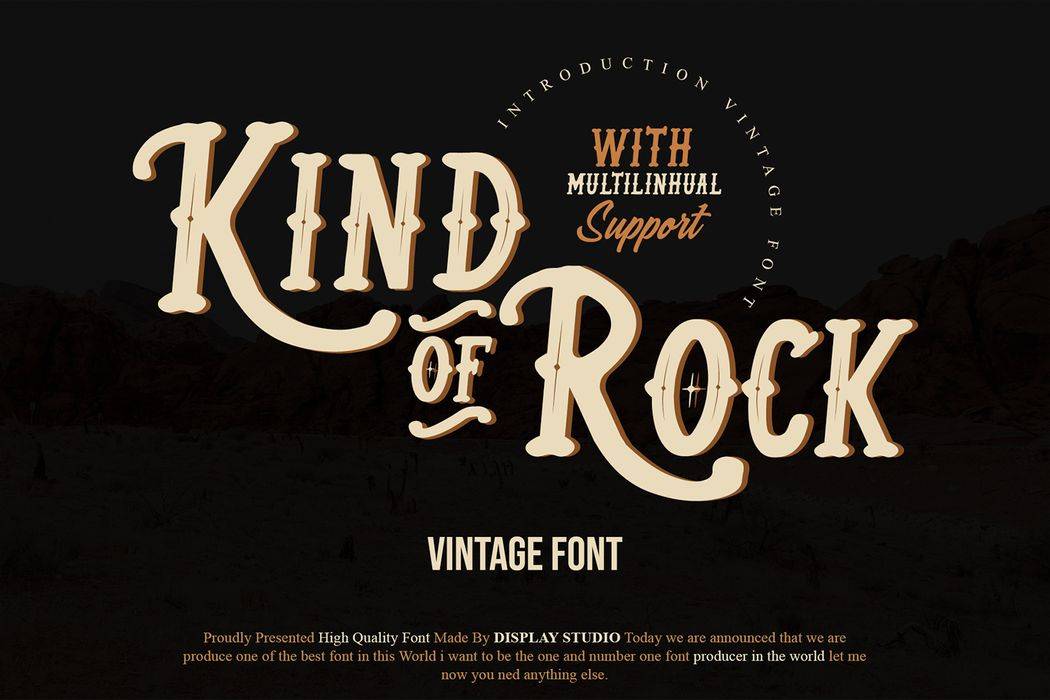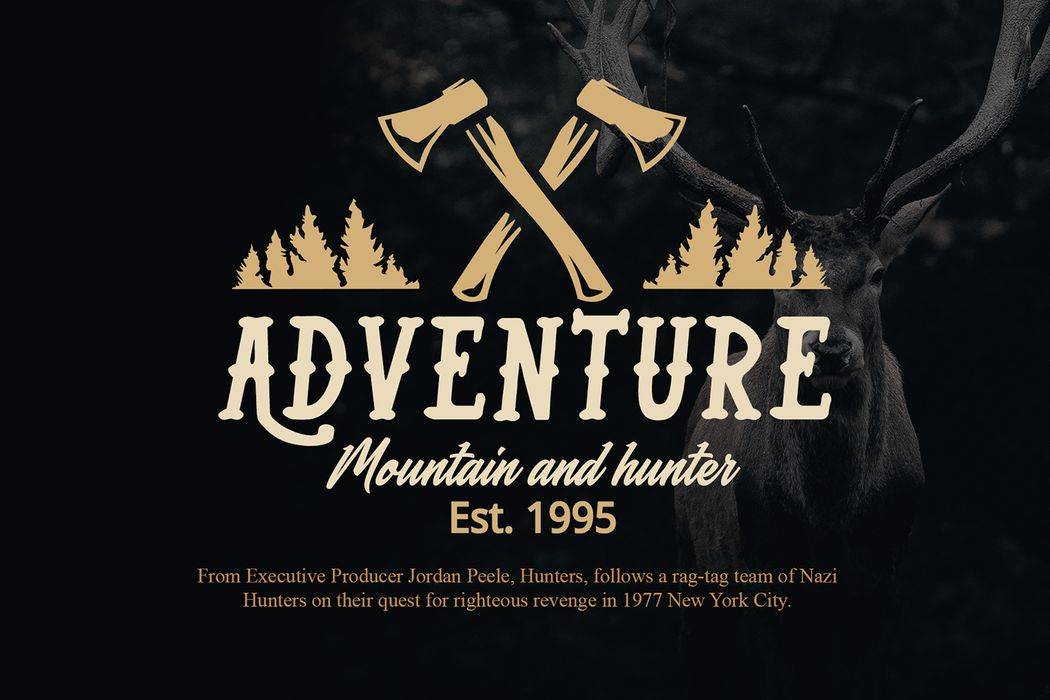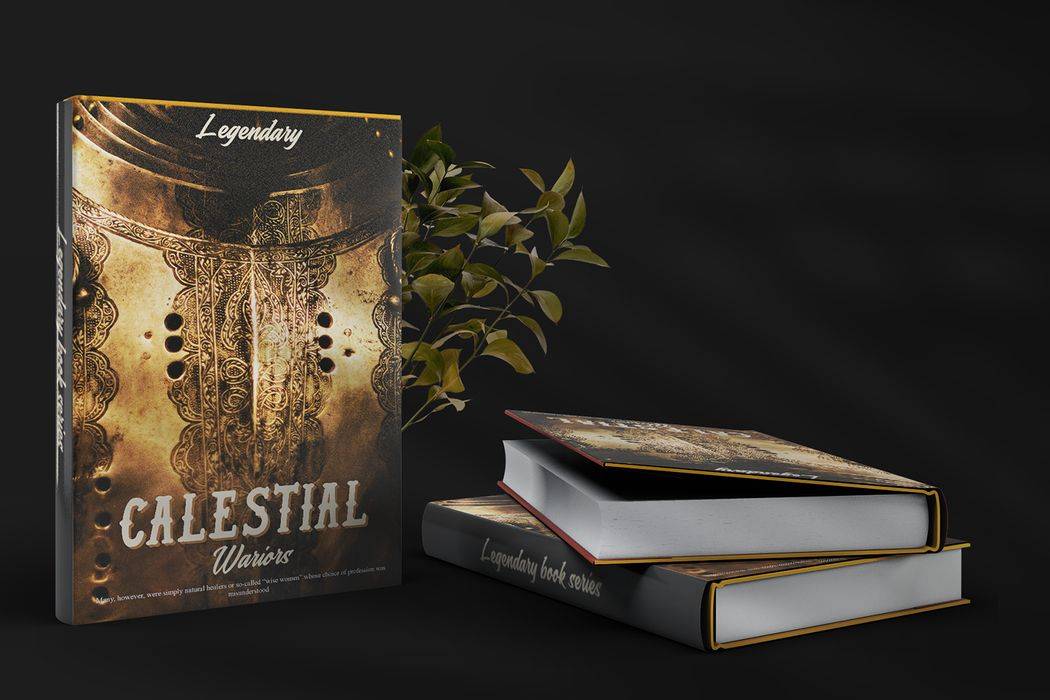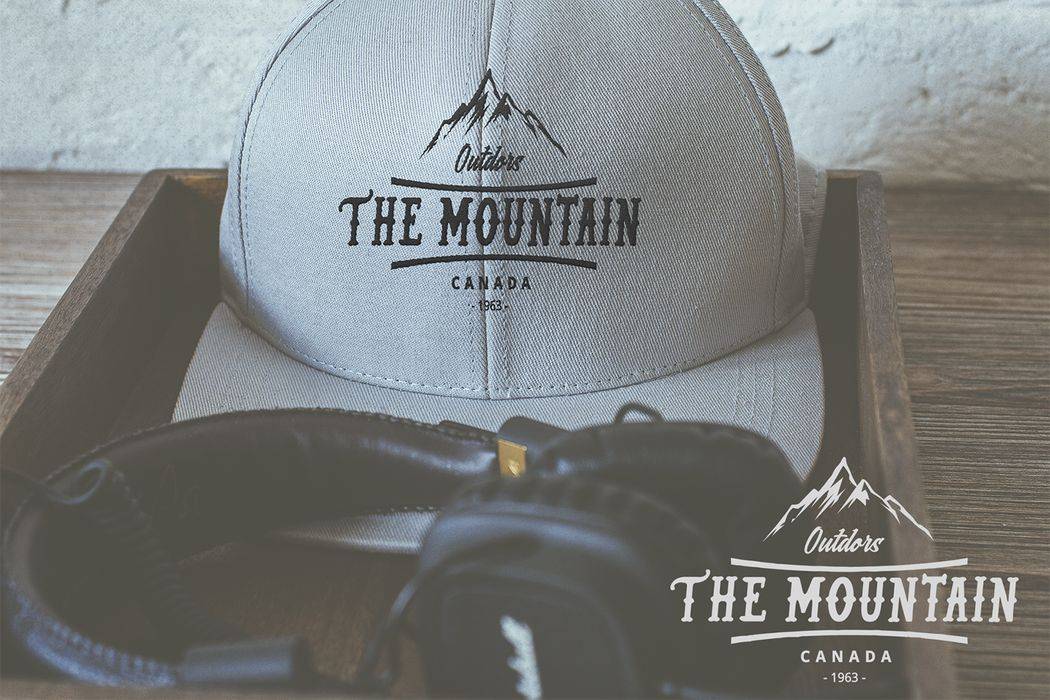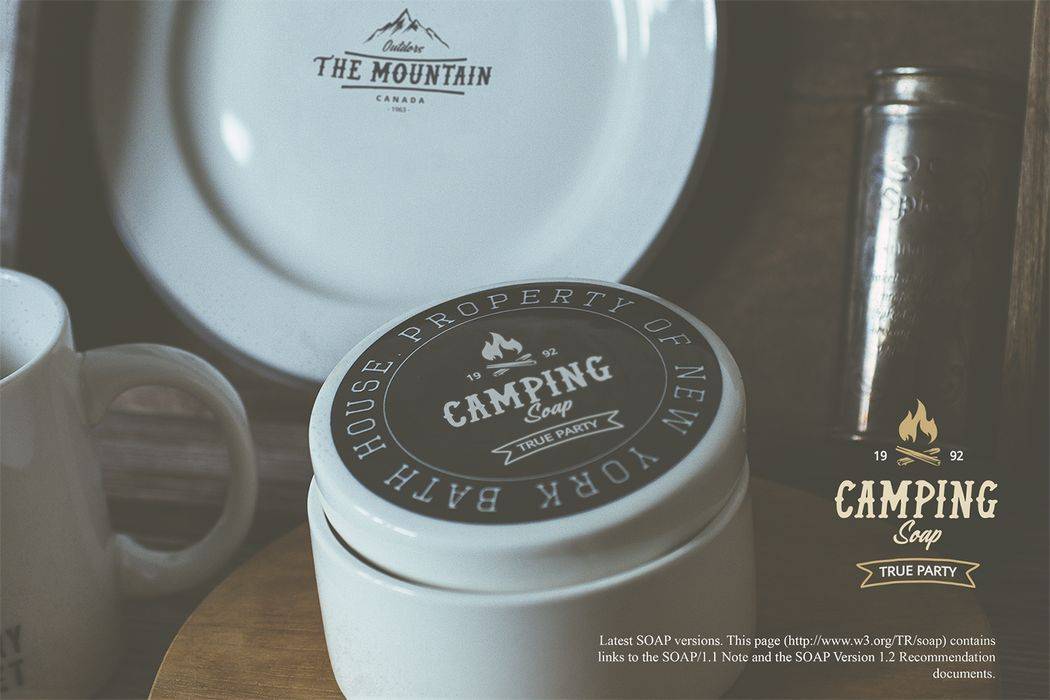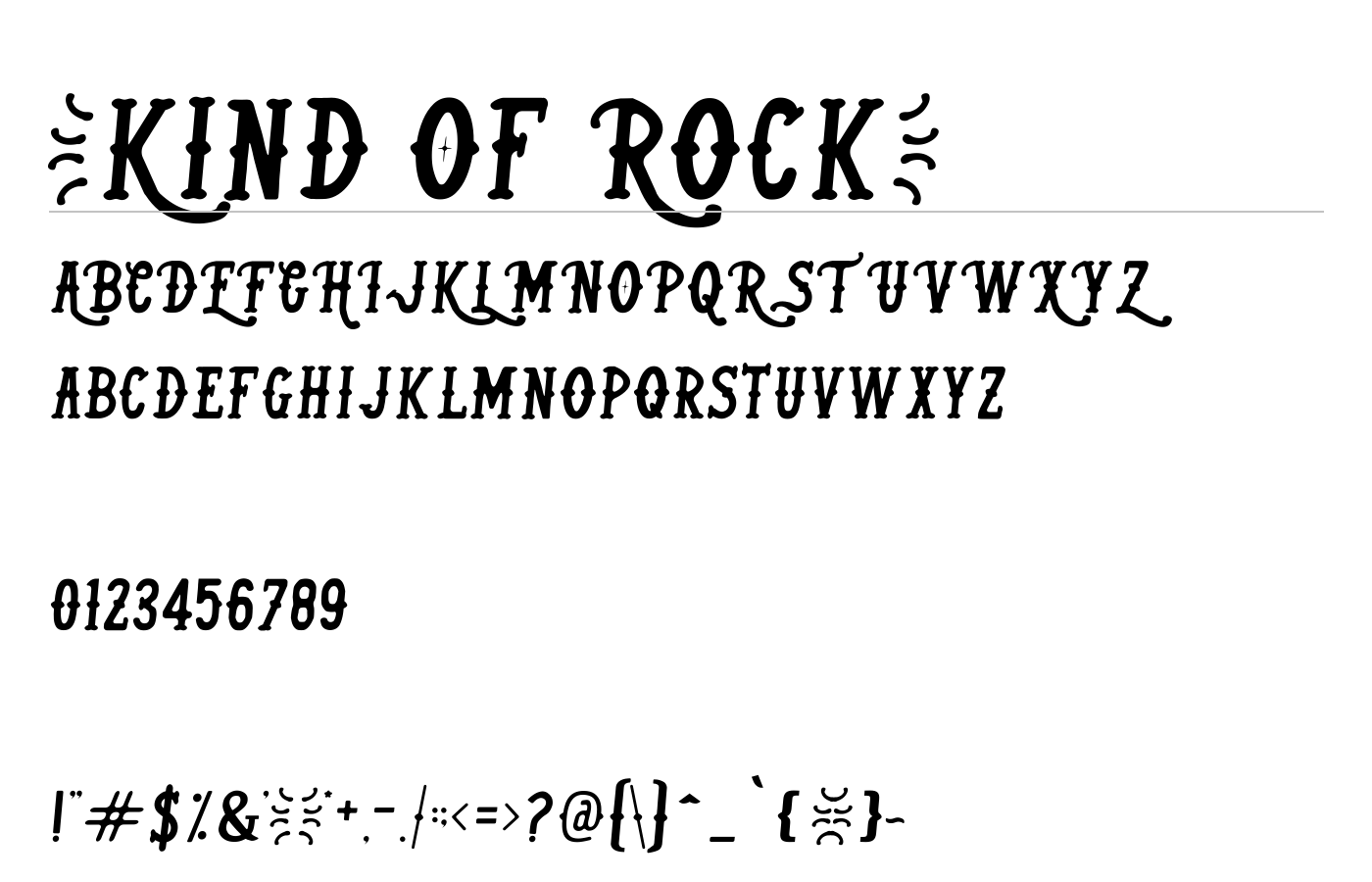
Kind of Rock is a bold, playful serif font with a vintage, western-inspired vibe. Featuring thick, sturdy strokes with decorative, swirly elements and a lively personality, it suits creative projects like logos, posters, or packaging that want to evoke a fun yet rugged style. This font’s unique charm and strong presence make it ideal for headlines and branding that require an eye-catching, nostalgic feel.
Kind of Rock Font
About Kind of Rock Font
| Font family | Kind of Rock Font |